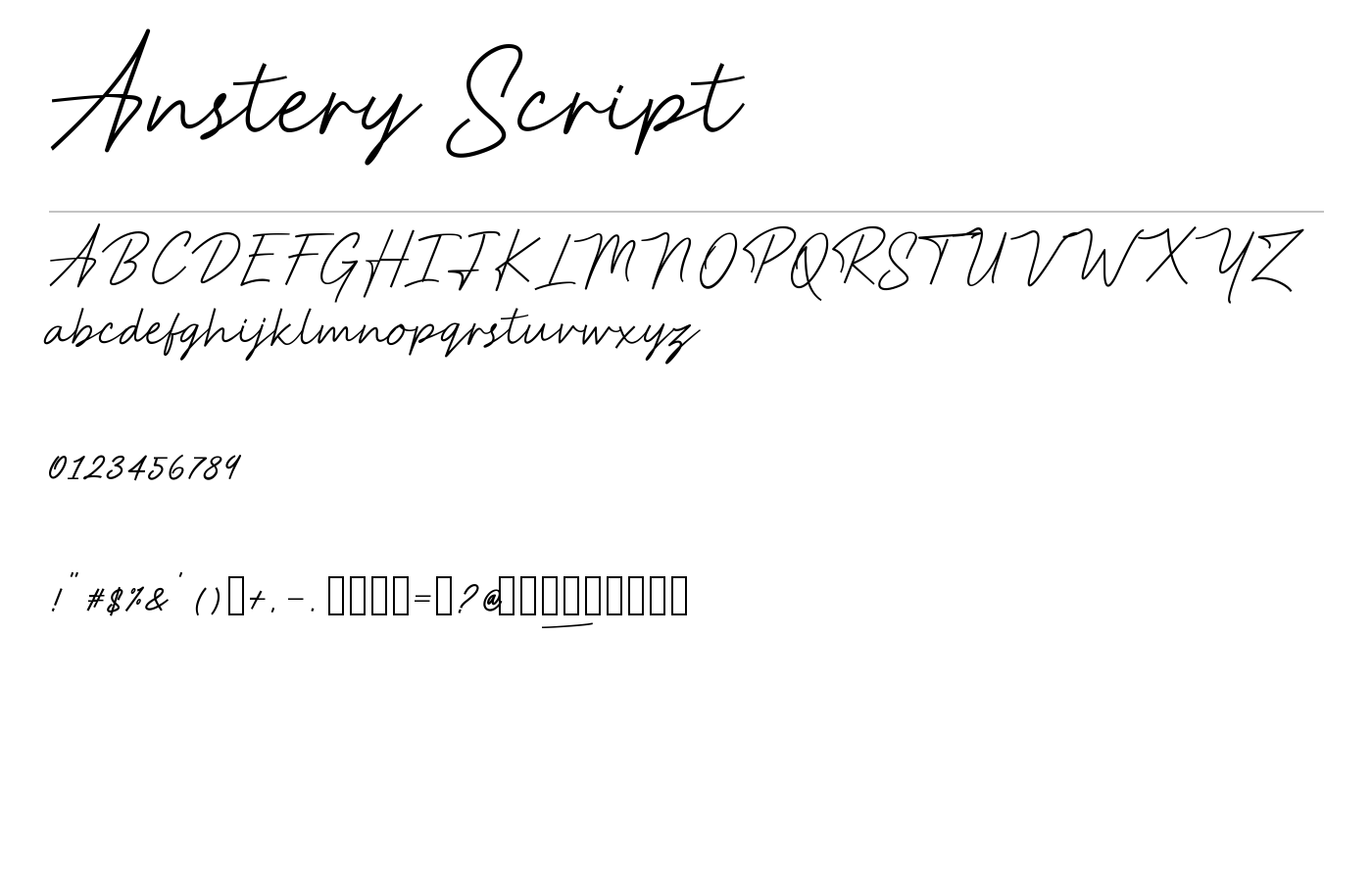
Anstery Script is a delicate and elegant handwritten font with thin, flowing strokes that create a natural and personal feel. Its slender, slightly irregular letterforms give it a casual yet refined appearance, making it perfect for invitations, branding, and any design that needs a touch of sophistication and warmth. This font works wonderfully in projects where a graceful and intimate vibe is desired, especially in creative and lifestyle contexts.
Anstery Script Font